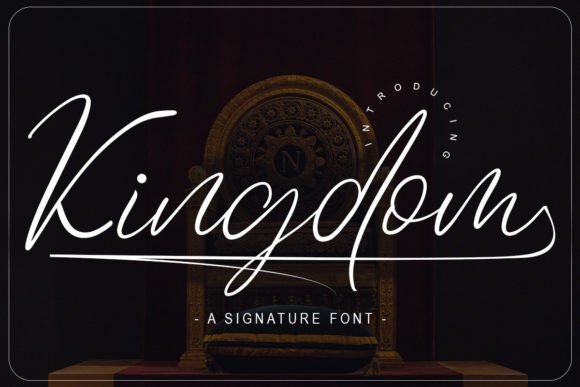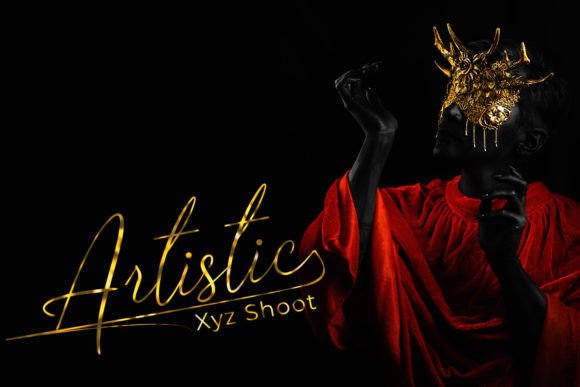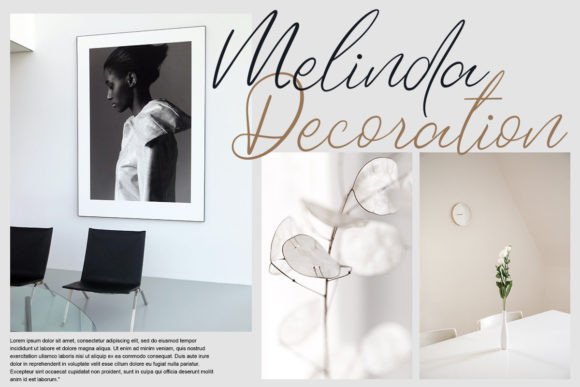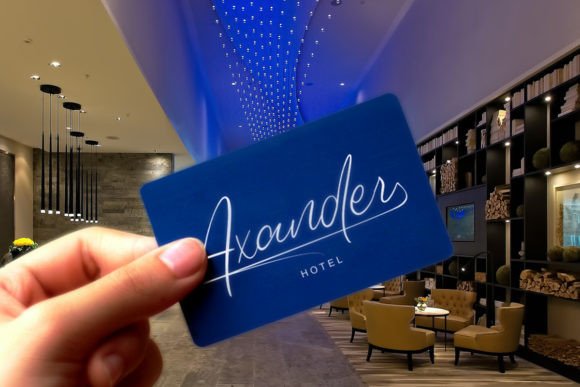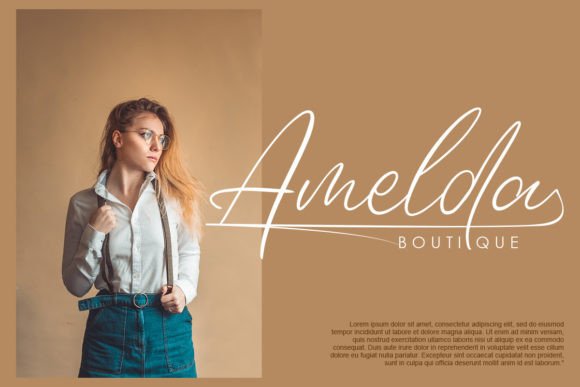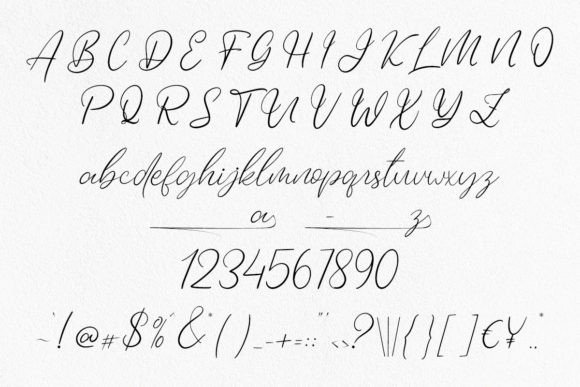
Kingdom Font
**”Kingdom”** is a dazzling script font that stands out with its intricate and highly detailed design. This carefully crafted font offers a level of sophistication and artistry that can elevate your design projects, making it a valuable addition to your font library.
The intricacy and detail of **”Kingdom”** make it suitable for a wide range of design topics and applications. Whether you’re working on branding, invitations, posters, digital art, or any other creative project, this font has the potential to enhance your creations.
In branding, **”Kingdom”** adds a touch of elegance and uniqueness to your logo and brand identity. Its carefully crafted details make it stand out, leaving a lasting impression on your audience.
Invitations designed with **”Kingdom”** exude a sense of artistry and craftsmanship. This font enhances the overall aesthetics of wedding invitations, event invitations, and special occasion cards, making them more visually appealing and memorable.
Posters and digital art created using **”Kingdom”** acquire a level of sophistication and artistic flair. The font’s intricate details add depth and character to your visuals, creating a more captivating and expressive impact.
The PUA encoding of **”Kingdom”** provides easy access to all its glyphs and swashes, allowing you to explore various design possibilities and customizations effortlessly.
In summary, **”Kingdom”** is a dazzling script font that brings intricate detail and sophistication to your design projects. Its versatility and artistry make it a valuable choice for branding, invitations, posters, digital art, and any project where a touch of intricacy and creativity is desired.